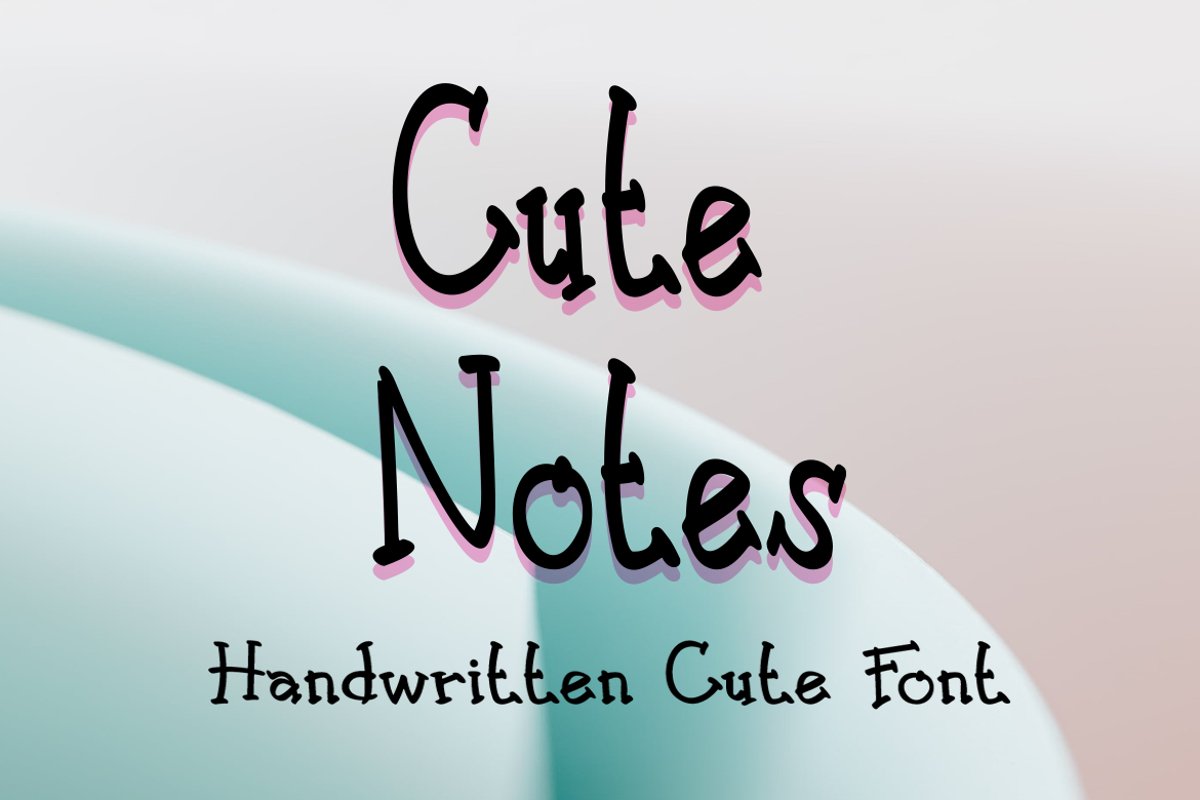
Cute Notes
Cute Notes simplifies elegance into one truly exceptional serif font. It maintains the influence of classy calligraphy while feeling contemporary and fresh. It carries real, beautiful, hand-drawn strokes. This flexibility will appeal to a variety of funny ideas, from letterhead and titles, to stationery.